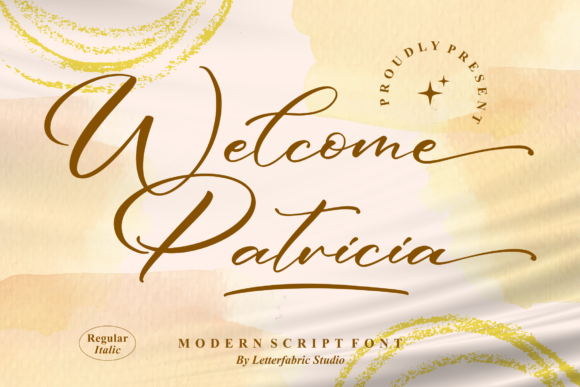
Unleash the Beauty of Your Words with Welcome Patricia Font, Where Whimsy Meets Elegance
Immerse yourself in a world of enchantment where your creativity knows no bounds. Welcome Patricia Font, a captivating script font, invites you to elevate your designs with its playful and graceful characters. Inspired by the magic of handwritten notes and the charm of vintage calligraphy, this font is a treasure trove of beauty and elegance.
Experience the Delight of Dancing Letters:
Welcome Patricia Font is crafted with meticulous attention to detail, capturing the essence of handwritten strokes in a modern and whimsical style. Each letter seems to dance along the baseline, adding a touch of joy and personality to your designs. The font's organic flow and playful curves create a captivating visual experience that draws the eye and leaves a lasting impression.
A Font Tailored for Endless Creative Possibilities:
Whether you're a passionate photographer, a creative designer, or a lover of handwritten aesthetics, Welcome Patricia Font is a versatile companion that complements a wide range of projects. Its enchanting charm shines through in logos, branding, invitations, photography overlays, social media posts, and any other creative endeavor that calls for a touch of magic and sophistication.
Express Yourself with Unparalleled Flair:
Welcome Patricia Font empowers you to convey your message with unparalleled flair and individuality. Its playful nature lends a touch of whimsy to your words, while its elegant curves add a touch of sophistication and grace. Whether you're crafting heartwarming love letters, capturing the essence of a special moment, or simply expressing your creativity, this font will elevate your words and make them shine.
Immerse Yourself in a World of Creative Enchantment:
With Welcome Patricia Font by your side, you'll find yourself immersed in a world of creative enchantment. Its captivating characters will ignite your imagination and inspire you to create designs that exude beauty, joy, and timeless elegance. Unleash the boundless potential of your creativity and embark on a journey where every word is a work of art.